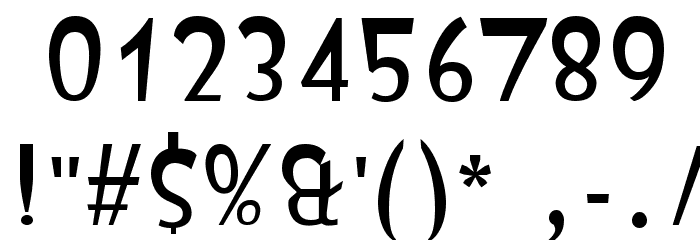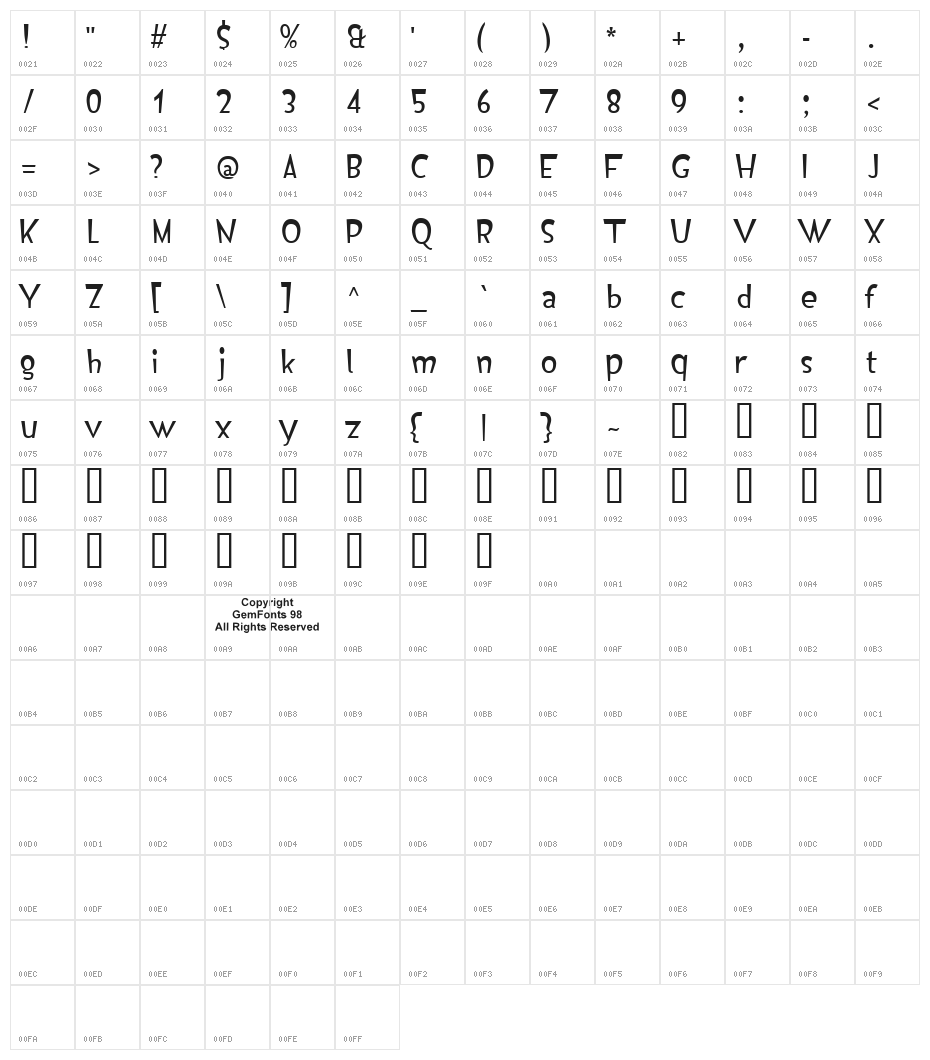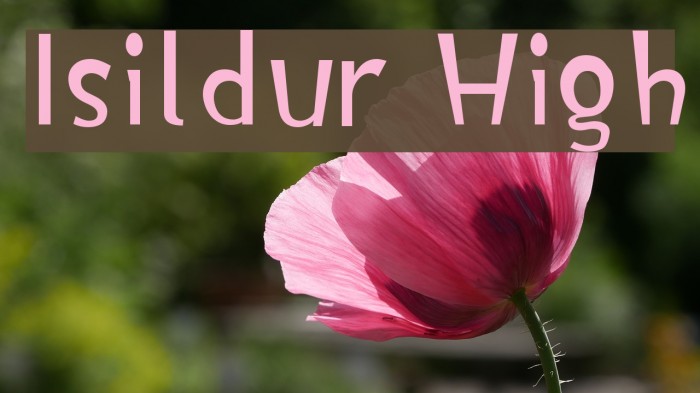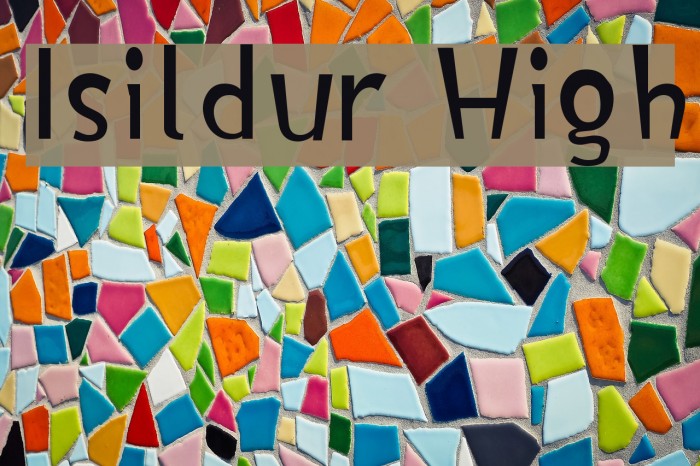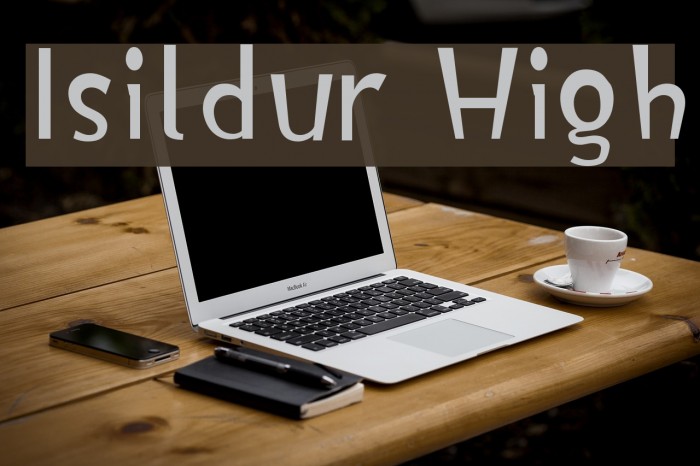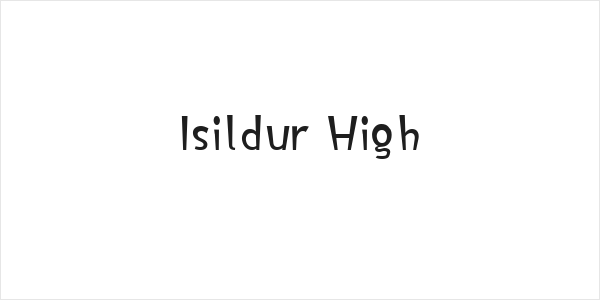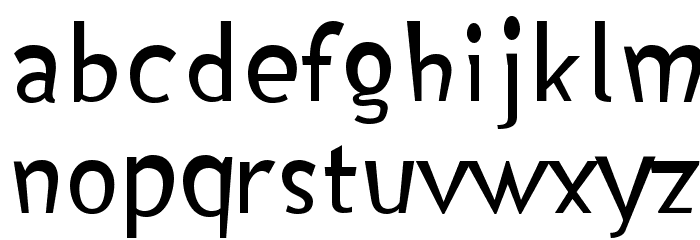
Isildur High Font
Isildur High Description
This font features a unique blend of modern and classic elements, characterized by its clean lines and geometric shapes. The uppercase letters are bold and assertive, with a slight curvature that adds a touch of elegance. The lowercase letters maintain a consistent style, offering a harmonious balance between readability and aesthetic appeal. The numerals are distinct and easily recognizable, making them suitable for various applications. Special characters are well-designed, complementing the overall style of the font. This typeface is versatile, offering a contemporary look that can be adapted to a wide range of design projects.
| Proposed Projects | Ideal for branding, editorial design, advertising, and digital interfaces. |